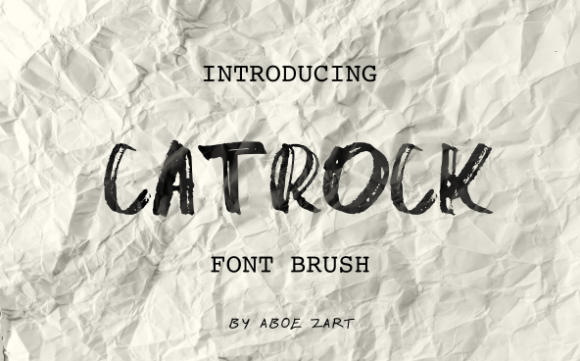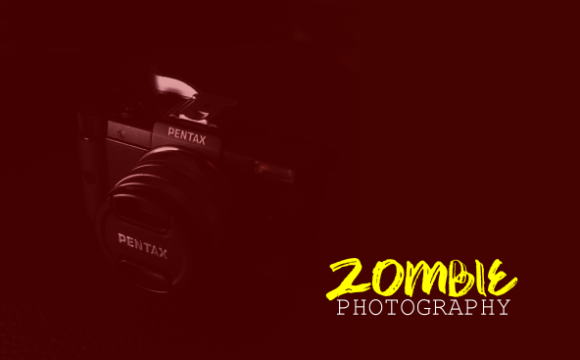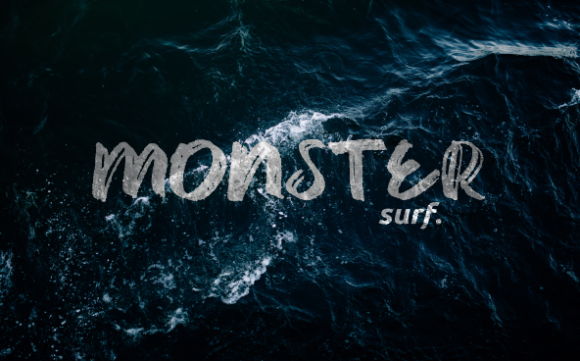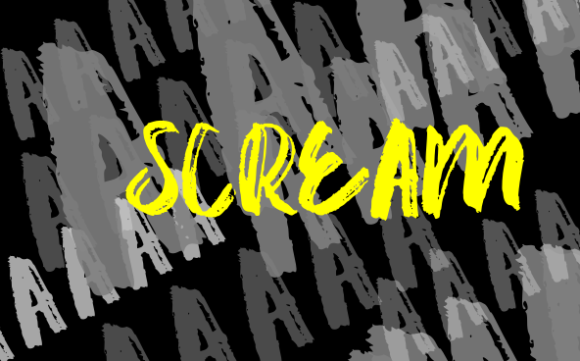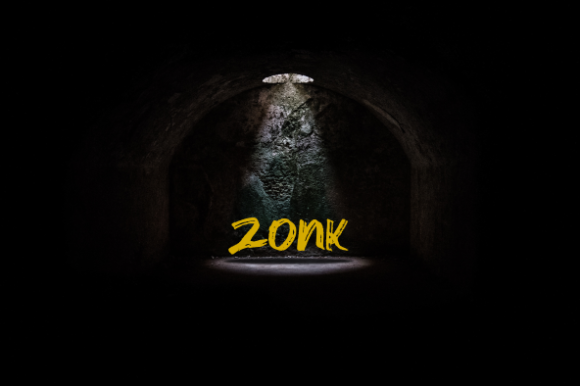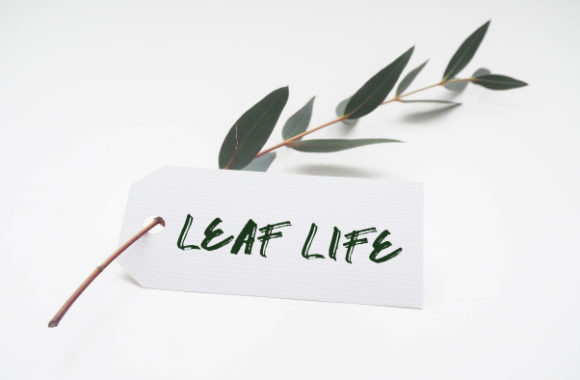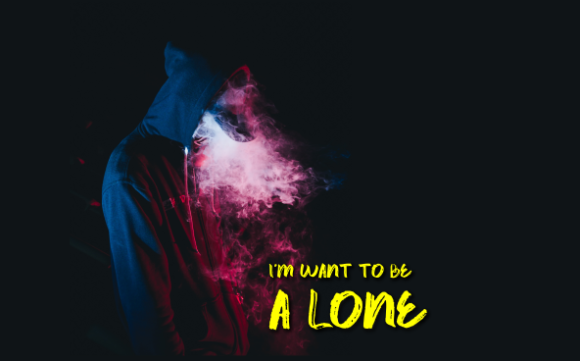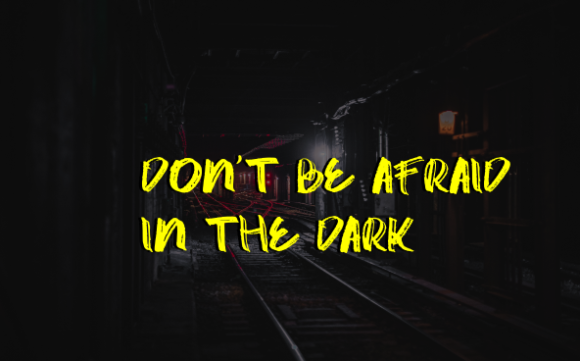
HomeScript FontsCatrock Font Script Fonts Catrock Font FacebookXPinterestWhatsApp Catrock Font Poster 2 Catrock Font Poster 3 Catrock Font Poster 4 Catrock Font Poster 5 Catrock Font Poster 6 Catrock Font Poster 7 Catrock Font Poster 8 About Catrock Font Catrock is a beautiful brush font with a bold feel. Use it to add a contemporary feel to any creative project. DOWNLOAD ON CREATIVE FABRICAThis font is sold and delivered by Creative Fabrica. Font Canyon may earn a commission if you buy through this link. People also explored Chomono Monogram Font Sweet Love Font Syariana Font Kimberly Font Violette Font Kensley Font Beautiful Nature Font Message in a Bottle Duo Font Anchovie Font 379 0 TagsCatrock Font Previous articleMoonllime FontNext articleRizen Font LEAVE A REPLY Cancel reply Comment: Please enter your comment! Name:* Please enter your name here Email:* You have entered an incorrect email address! Please enter your email address here Website: Save my name, email, and website in this browser for the next time I comment. Personal Use Free Morning Miow Personal Use Free Read more about this font Astagina Signature Personal Use Free Read more about this font Starborn Font Personal Use Free Read more about this font Jellia Personal Use Free Read more about this font BLOG Transform Your Website: Elevate Your Typography with 7 Best Web Font Generators Are you ready to transform your website's typography from ordinary to extraordinary? Great! Today, we're diving into the world of web font generators, which... Top 10 Handwritten Fonts That Elevate Your Designs Fonts That Capture the Spirit of New York City Modern Sans-Serif Fonts That Brands Love in 2025